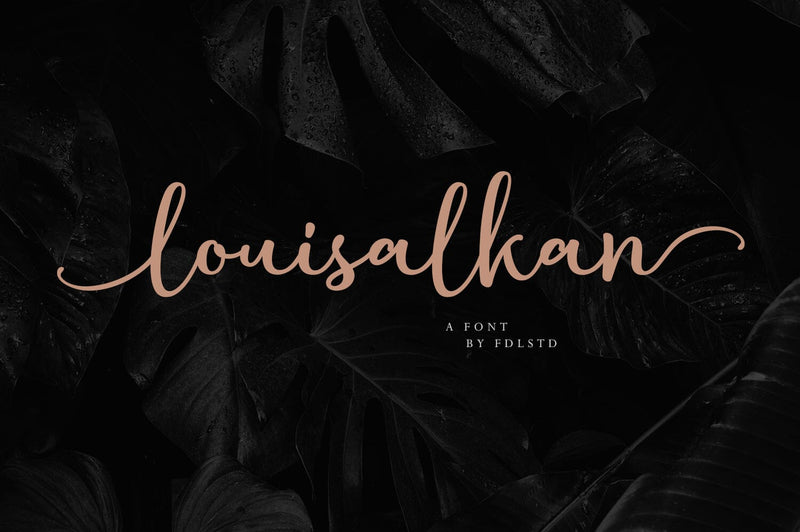
Louisalkan | Handwritten Font
This is a handwritten script font with a natural, elegant and simple style. Made with slowly and carefully to provide the natural and modern elements. The great thing about this font is you can find some style when you use it, examples such as natural handwriting style, unique, simple, elegant, and luxury. Very suitable to meet your various design needs that are trending now and using this font can make your design more alive!